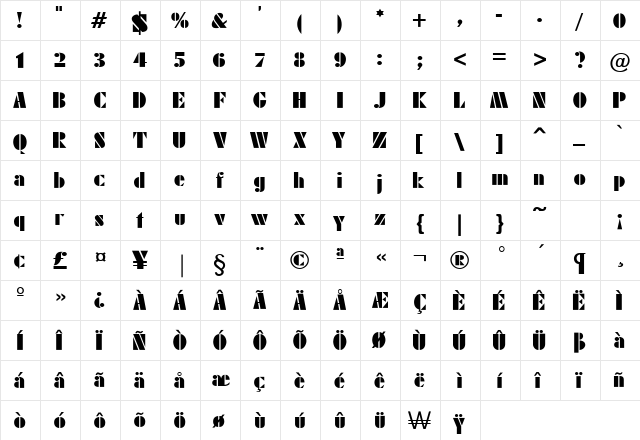
Modern Stamp Regular Font Preview
Modern Stamp Regular
Modern Stamp Regular Font Details
Design Context for Modern Stamp Typeface
Modern Stamp has the rough pragmatism of spray-painted stencil signage, adding a raw, street-level authenticity to designs.
Ideal for industrial branding, streetwear, military-adjacent aesthetics, and urban signage projects.